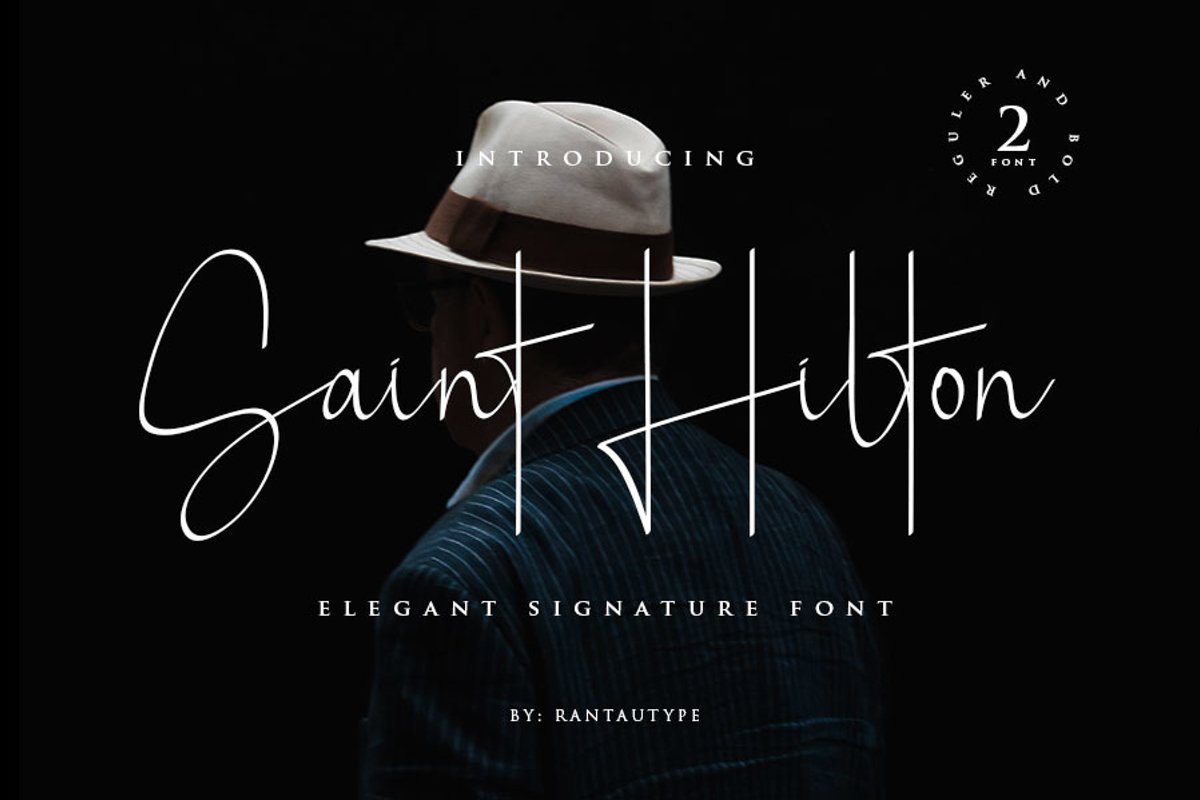
Saint Hilton
Saint Hilton is a stylish font with elegant scratch. It is perfect for branding ,wedding invitation and cards and for any other branding project. 2 font included
• Standart letter A-Z and a-z
• Numerial & Functional
• Alternate and Ligature
• Swashes